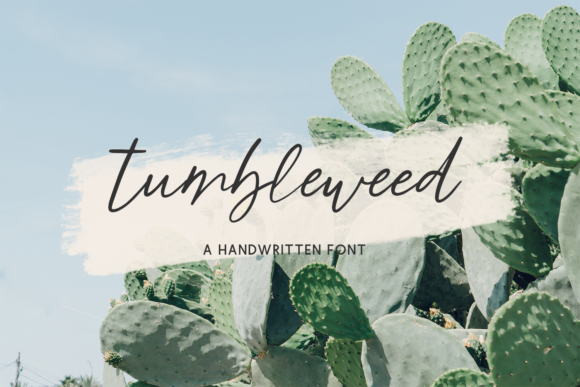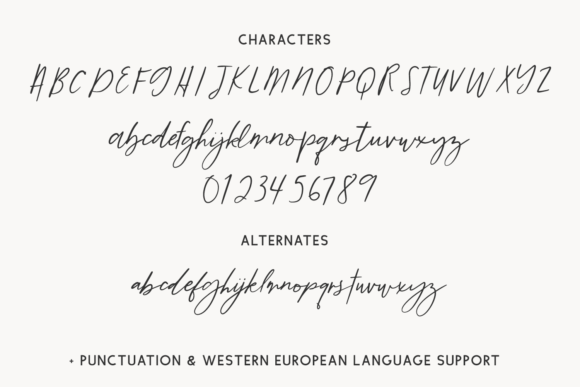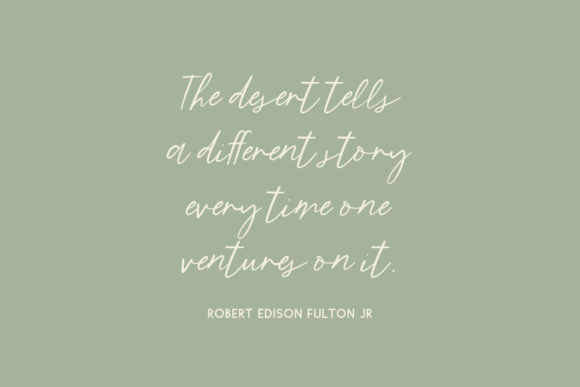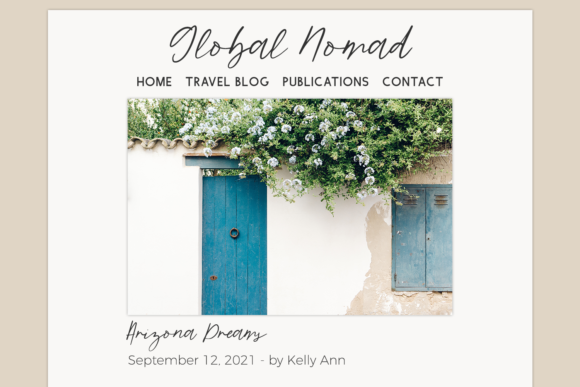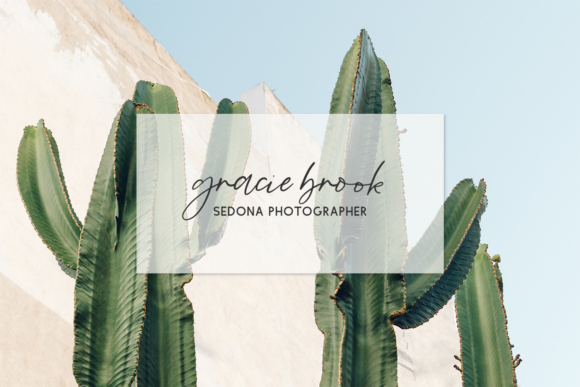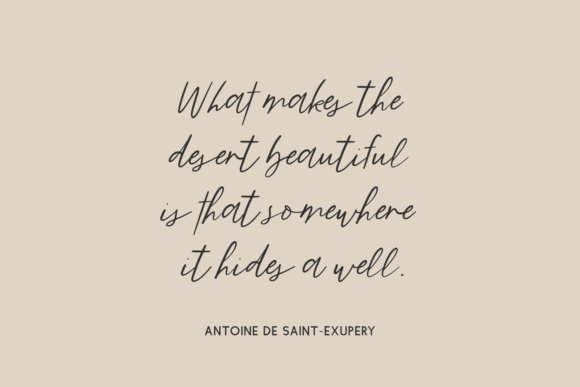
Tumbleweed Script Font
About Tumbleweed Script Font
Tumbleweed Script is a sweet and friendly handwritten font. Its natural and unique style makes it incredibly fitting to a large pool of designs. The only limit is your imagination!